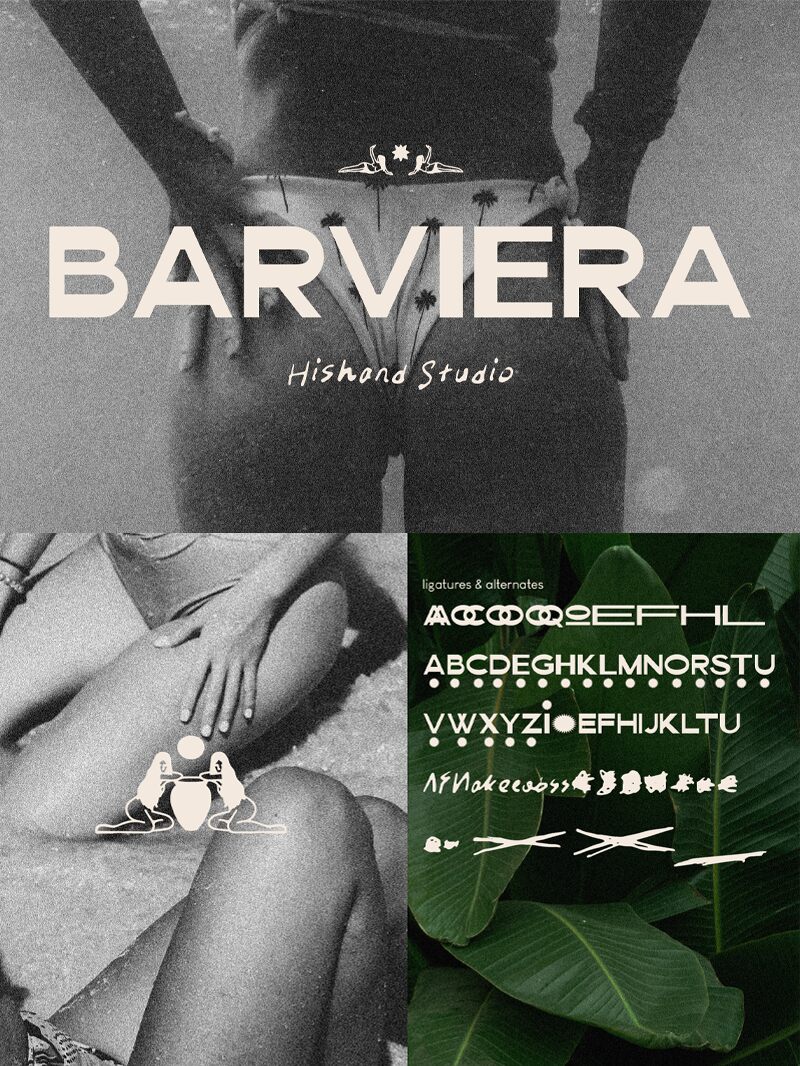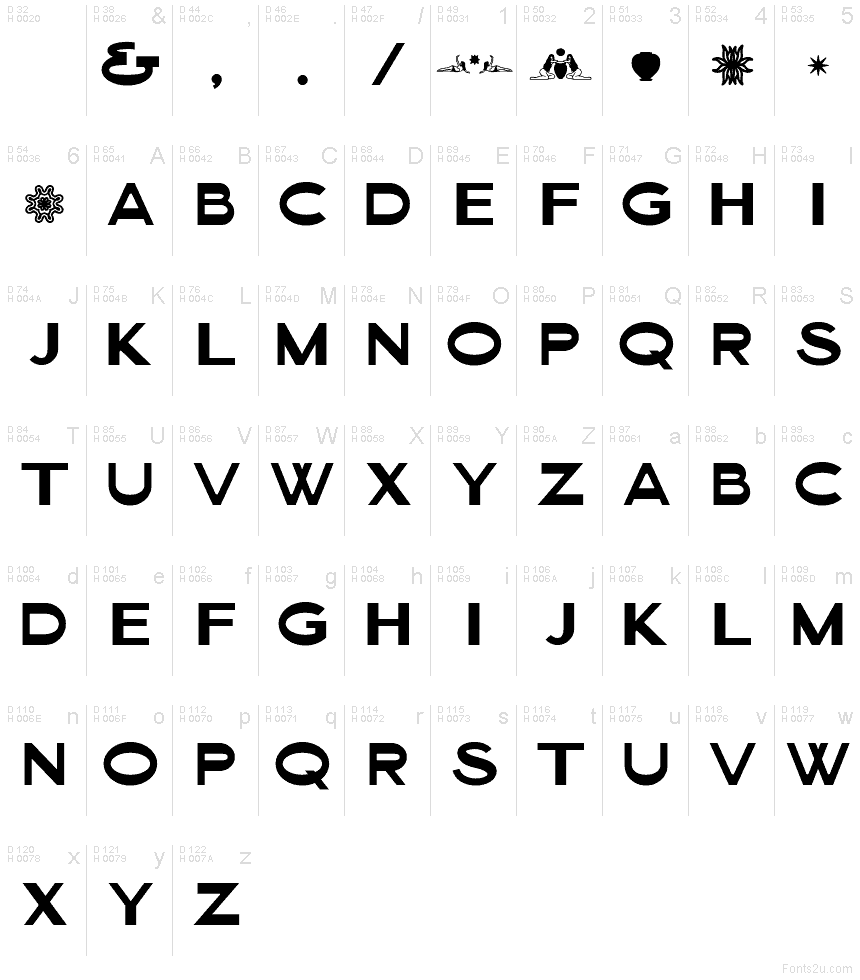
Barviera font by Hishand Studio is a free sans serif typeface with a chiseled, geometric bite. Tall, all-caps forms, razor-pointed V and A peaks, and squared curves give it a polished, almost architectural feel-like lettering etched into metal. Sturdy verticals and tidy spacing keep it crisp at larger sizes while delivering a cool, modern glamour without fussy details.
Using Barviera, headlines snap into focus and logos feel engineered, not generic. This free font shines on fashion branding, posters, product packaging, editorial titles, showroom signage, and sleek portfolios. Give it a touch of letterspacing for air, and pair it with a light grotesk or a quiet serif for body copy to let Barviera’s clean angles do the talking.